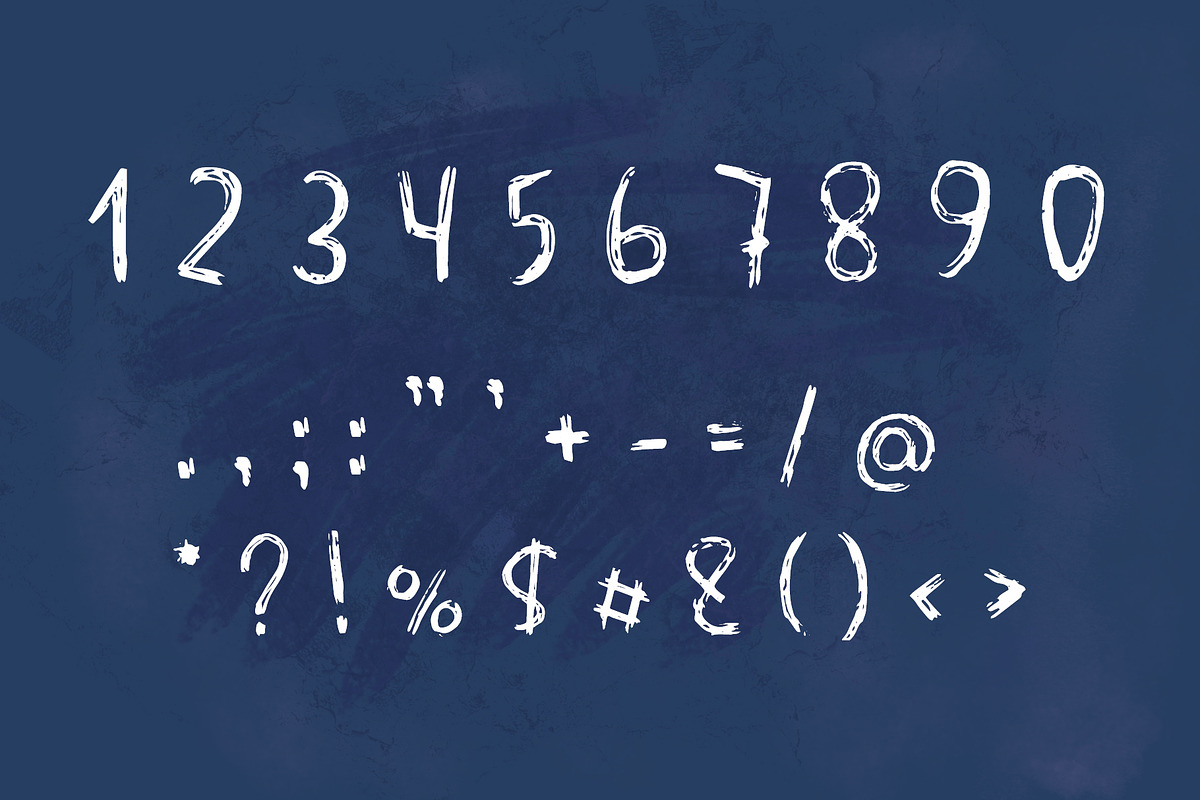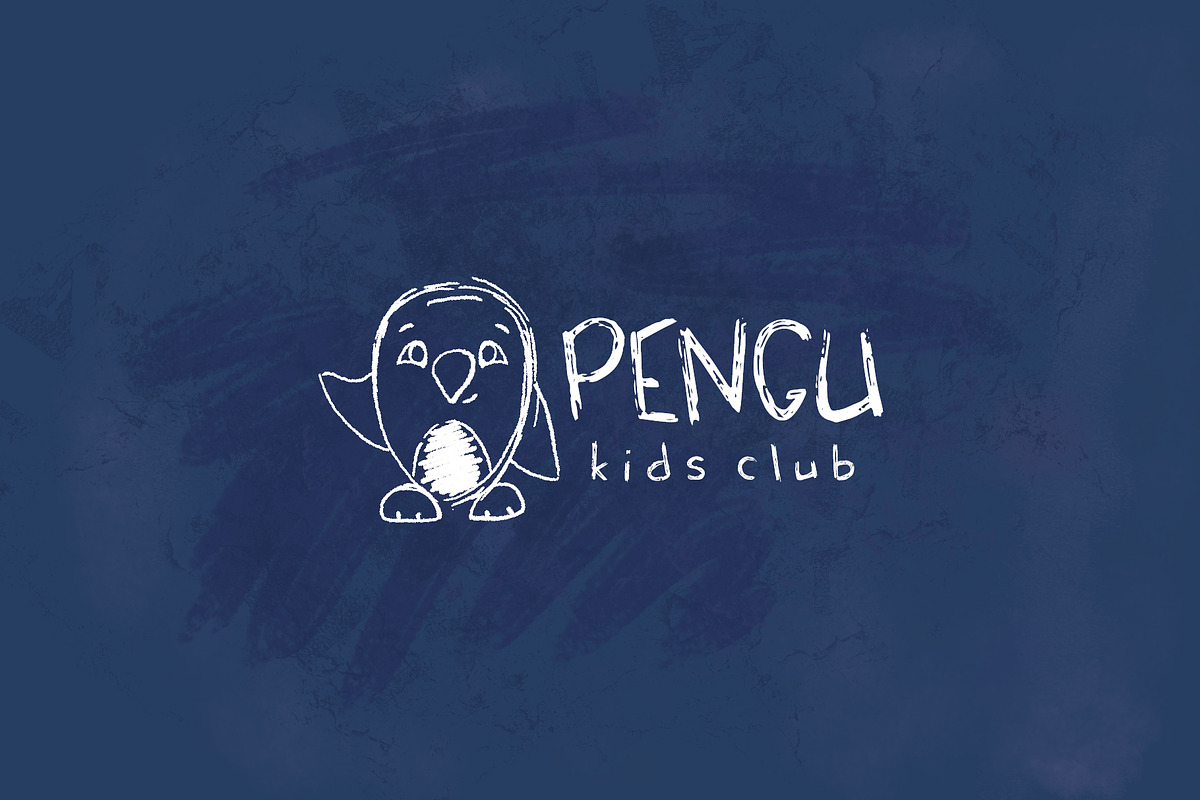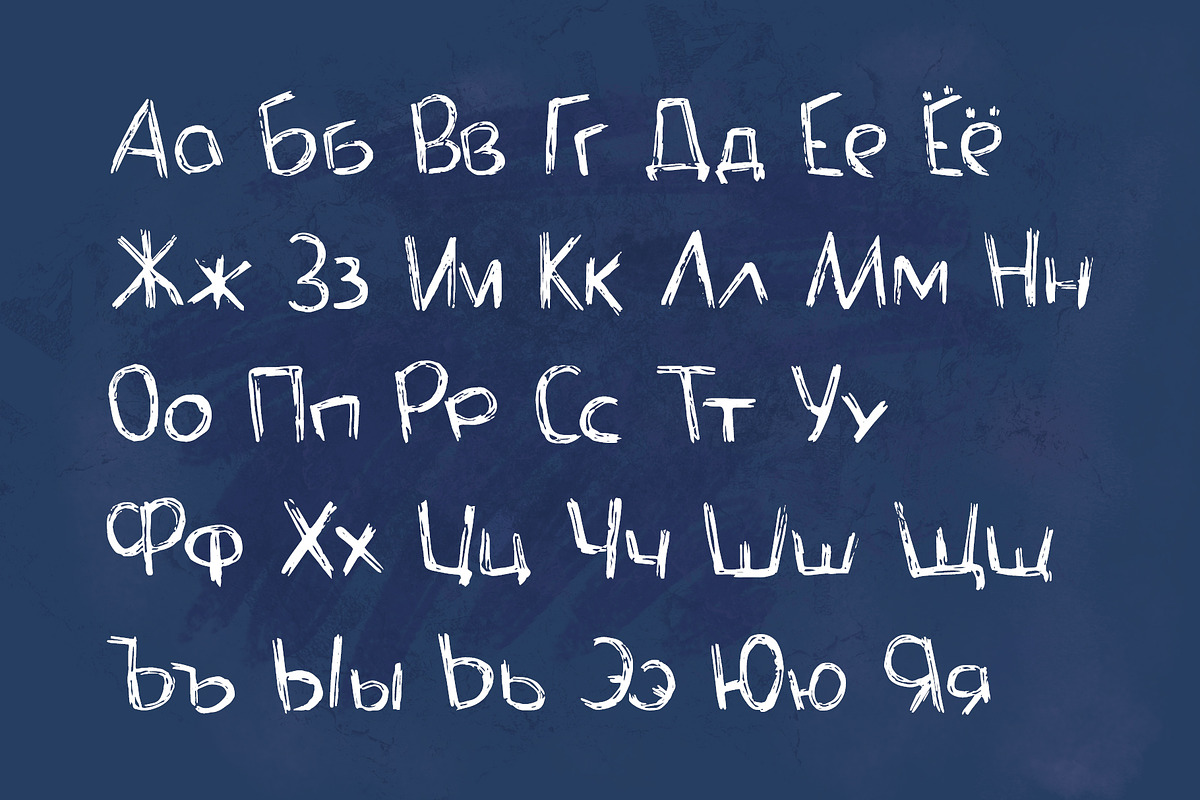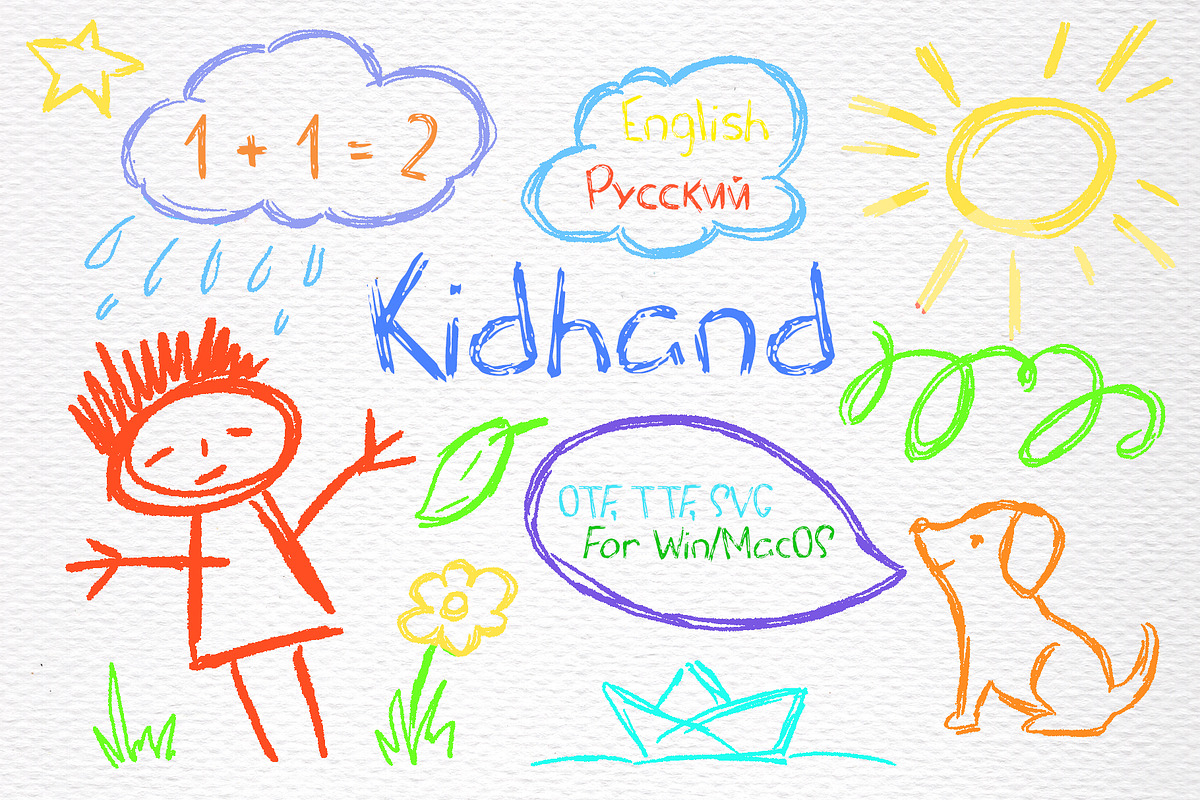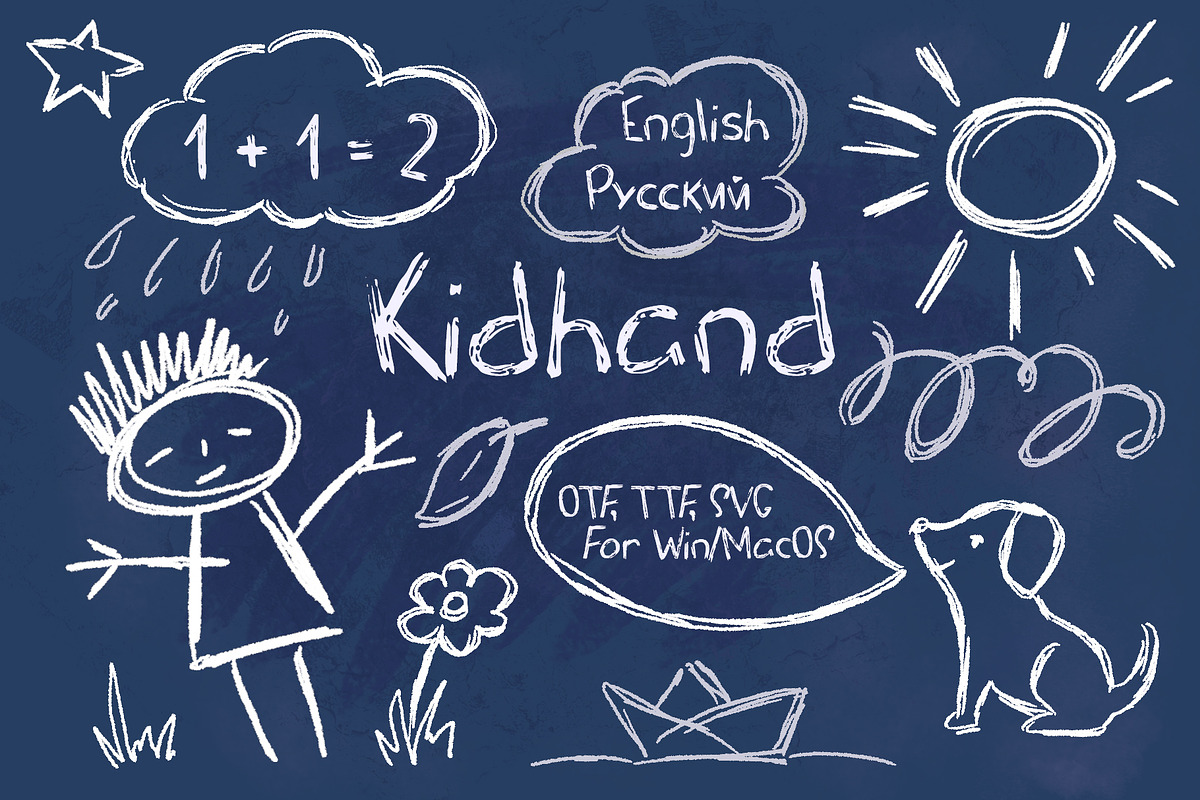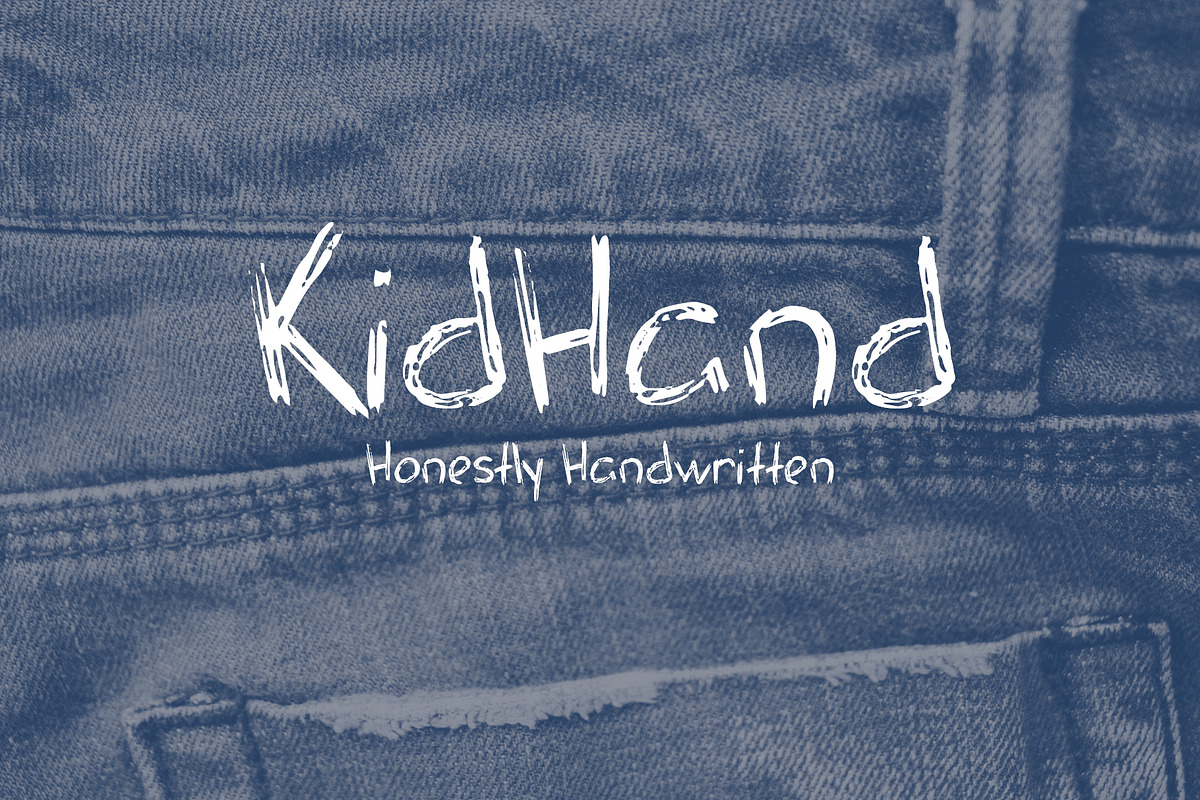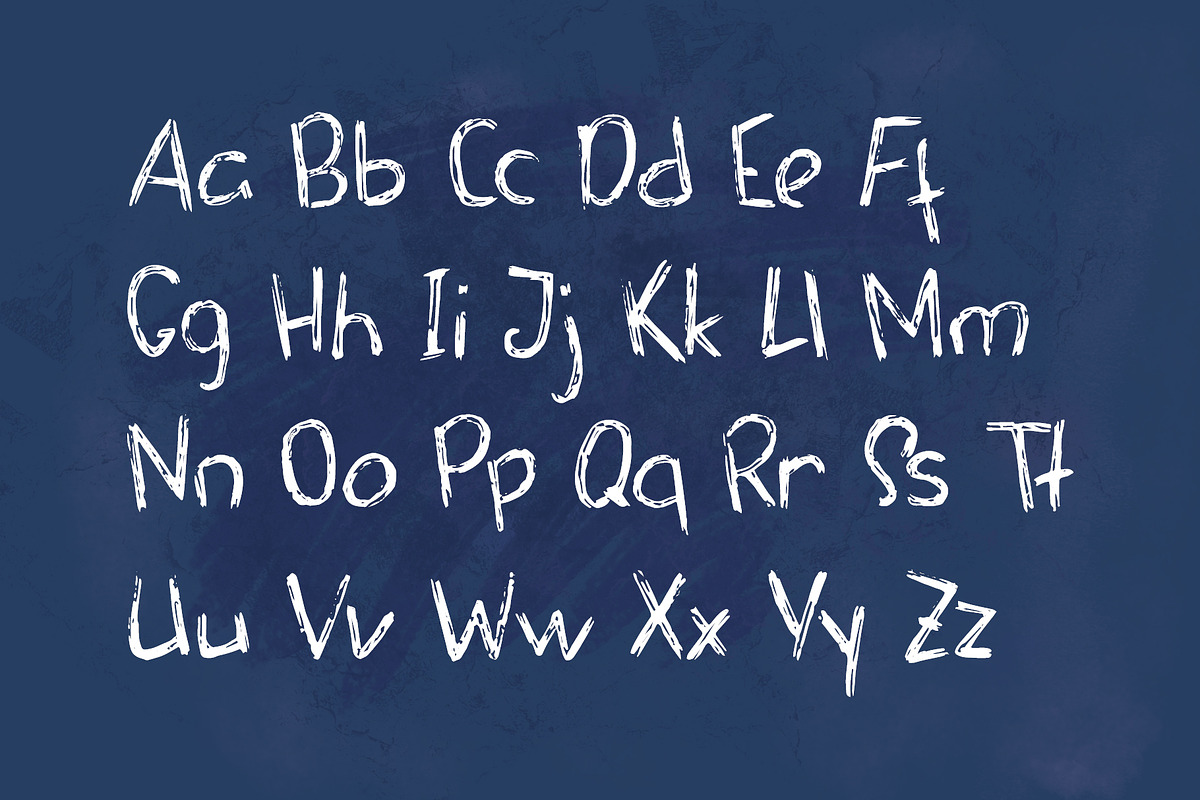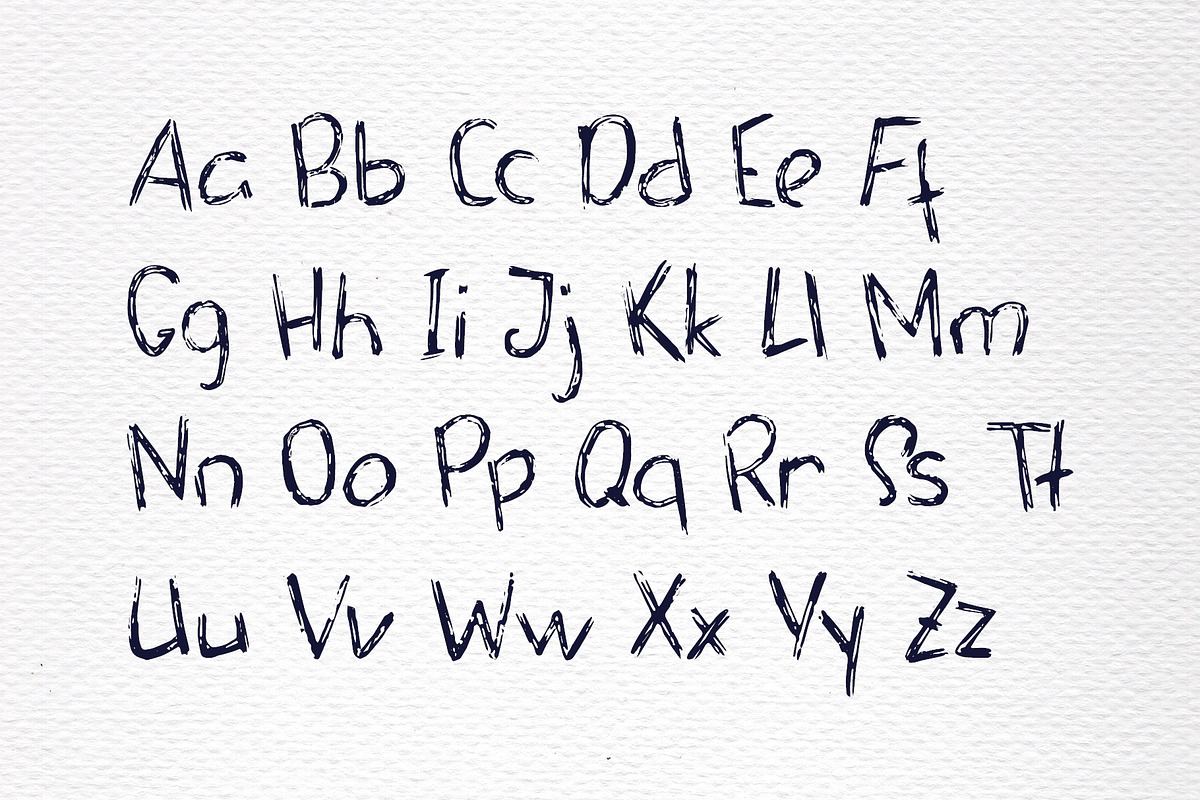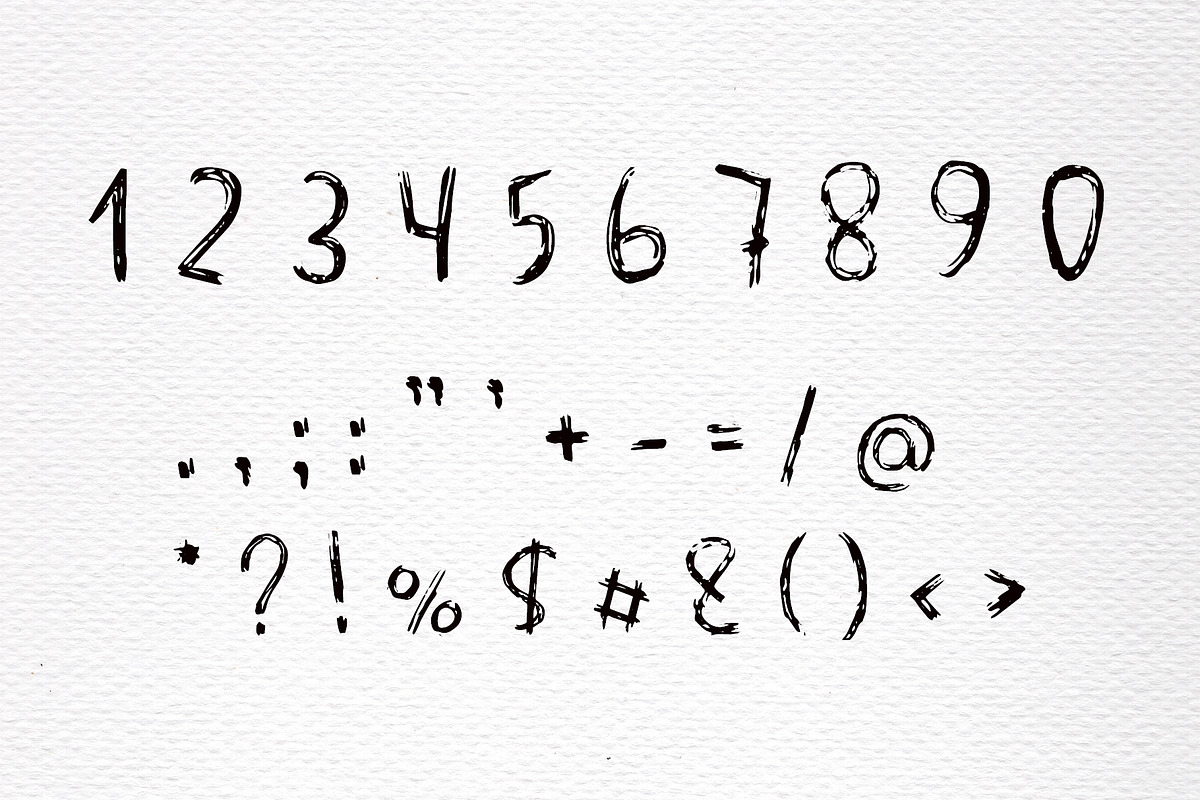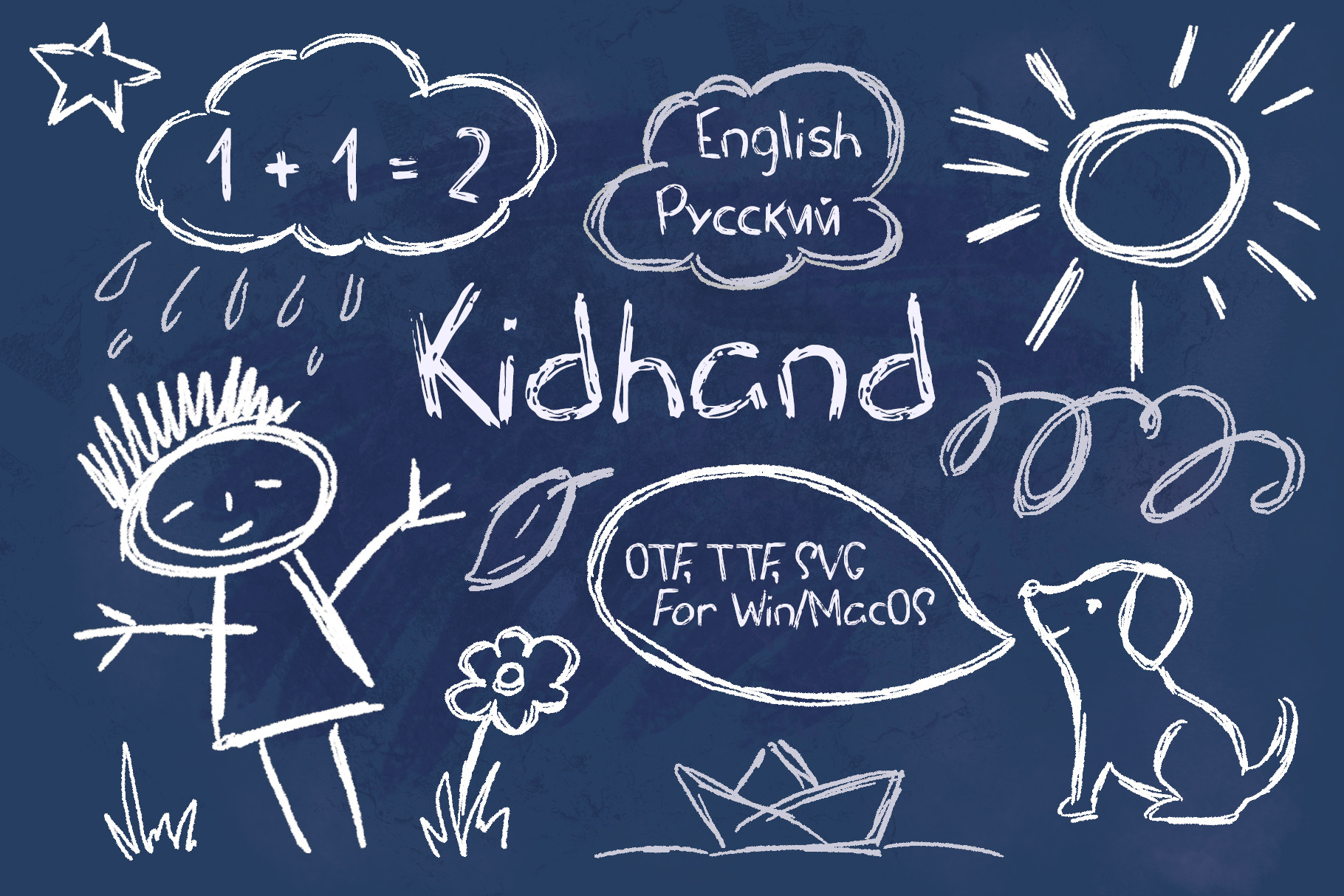
White Chalk Kid Scribbled Font
Kidhand is a truly handwritten - even hand-scribbled! - font, with the carefully traced texture and pencil grit! It is perfect for informal messages, kids product logo, artistic banners, and many more! It looks perfect as crayon pencil, and white chalk on blackboard!
Kid Hand Script has English and Cyrillic (Russian) alphabet, wide range of punctuation and math signs, and numbers.